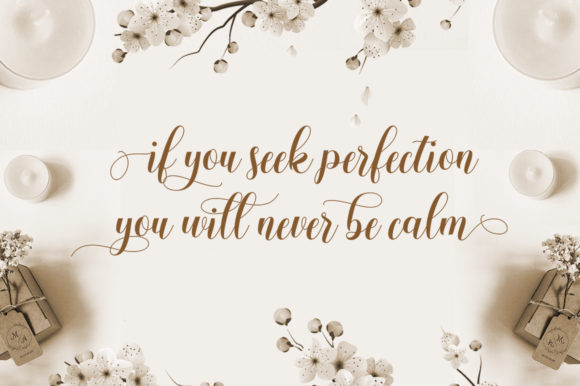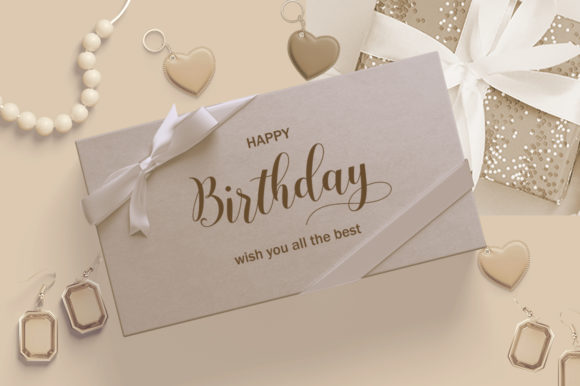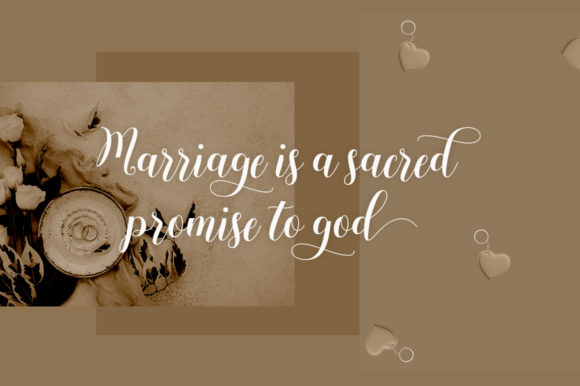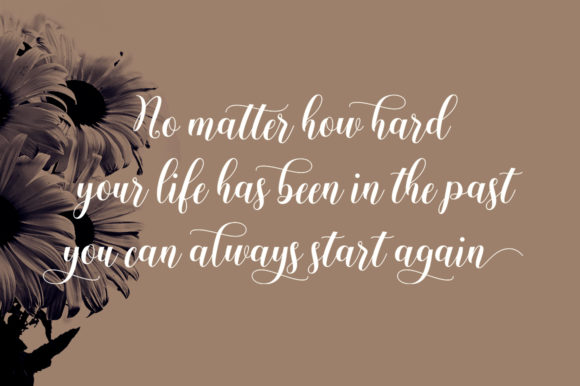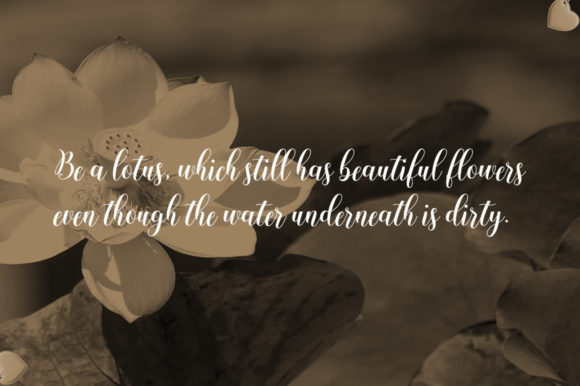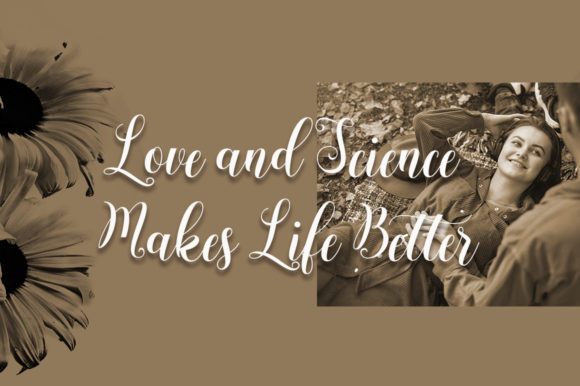
Introducing Andesia Font: Elevate Your Designs with Elegance and Versatility
In the realm of typography, few fonts manage to capture the essence of elegance and versatility as effectively as the Andesia Font. This delicate and distinct handwritten font has been making waves among designers and crafters alike, and for good reason. Andesia is not just a font; it’s an experience, a statement, and a tool that can transform your designs into spectacular works of art.
The Distinctive Charm of Andesia
Andesia’s charm lies in its unique blend of delicacy and distinction. It’s a handwritten font that exudes a sense of personal touch, making it perfect for projects that demand a more human and less mechanical feel. Whether you’re working on a branding project, a wedding invitation, or a packaging design, Andesia brings a level of sophistication and elegance that’s hard to match.
PUA Encoding: Unlocking Creative Potential
One of the standout features of Andesia is its PUA (Private Use Area) encoding. This means that the font comes with a range of glyphs and swashes that are easily accessible, allowing designers to experiment and explore a wide array of creative possibilities. The PUA encoding ensures that you can mix and match different elements to create a truly unique look that sets your design apart from the rest.
Design Features of Andesia Font
Andesia boasts a variety of design features that make it incredibly versatile and a joy to work with. Some of its key features include:
- Varying Baseline: Andesia’s letters sit on a varying baseline, which gives the font a dynamic and organic feel. This feature adds to the handcrafted look and feel of the font, making it perfect for designs that require a personal touch.
- Smooth Lines: The font features smooth, flowing lines that contribute to its elegance and sophistication. These lines ensure that Andesia looks great in both digital and print formats.
- Gorgeous Glyphs: With a range of glyphs at your disposal, you can add depth and complexity to your designs. These glyphs can be used to create intricate patterns, add decorative touches, or simply to vary the look of your text.
- Stunning Alternates: Andesia comes with stunning alternate characters that allow you to further customize your text. These alternates can be used to create visual interest, emphasize certain words or phrases, or simply to add some variety to your design.
The true power of Andesia lies in its versatility. This font can be used across a wide range of projects, from:
- Branding: Create memorable logos and brand identities with Andesia’s unique and elegant style.
- Wedding and Event Stationery: Add a touch of sophistication to your wedding invitations, place cards, and other event materials.
- Packaging: Elevate your product packaging with Andesia’s distinctive look, making your products stand out on store shelves.
- Digital Media: Use Andesia in your digital projects, such as website designs, social media graphics, and video content, to add a personal and elegant touch.
Andesia Font is a game-changer for designers and crafters looking to add a touch of elegance and versatility to their projects. With its delicate and distinct handwritten style, PUA encoding, and range of design features, Andesia offers endless possibilities for creative expression. Whether you’re a seasoned designer or just starting out, Andesia is a font that will inspire you to create spectacular designs that leave a lasting impression.